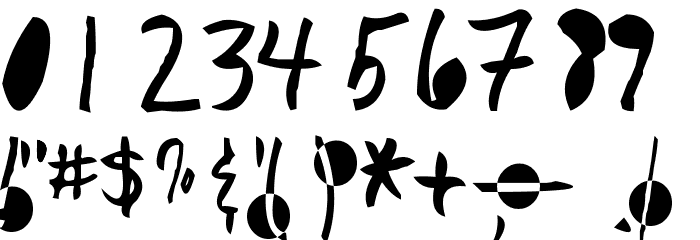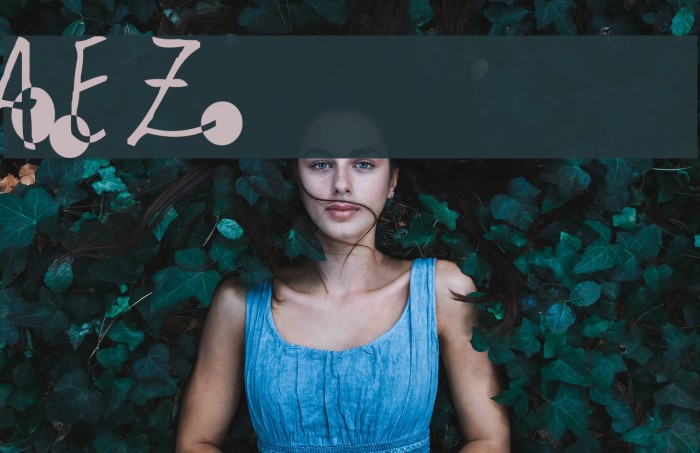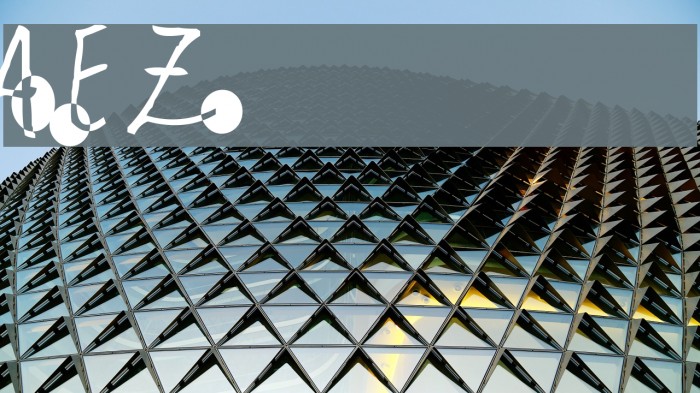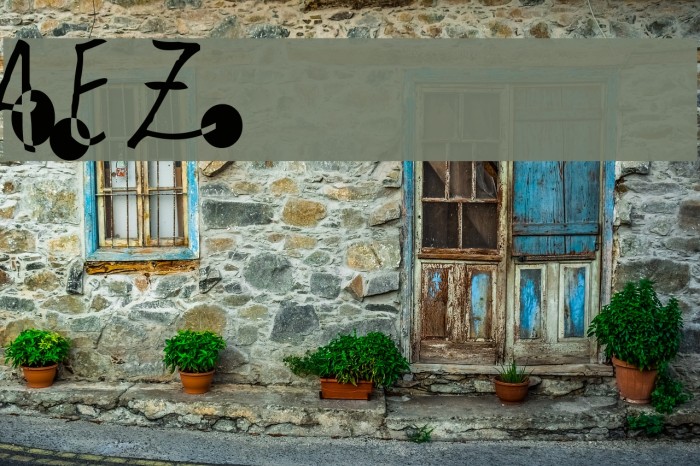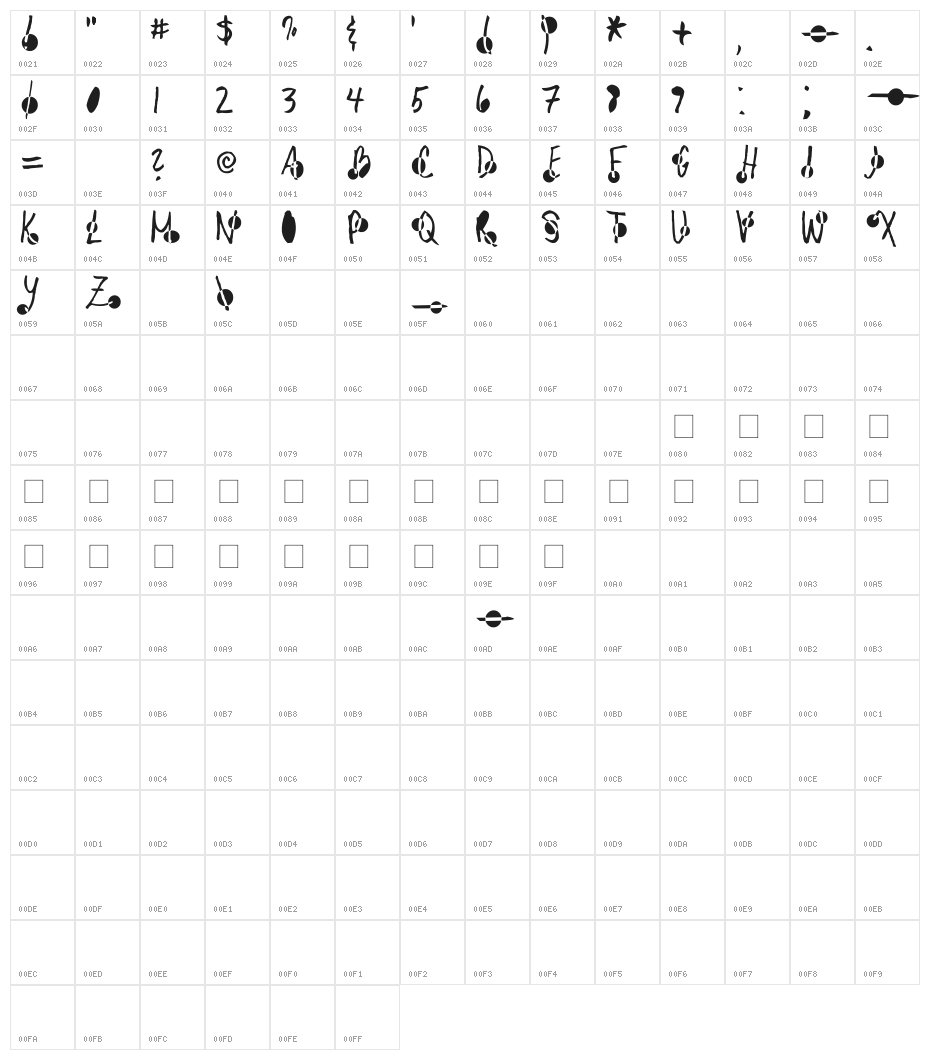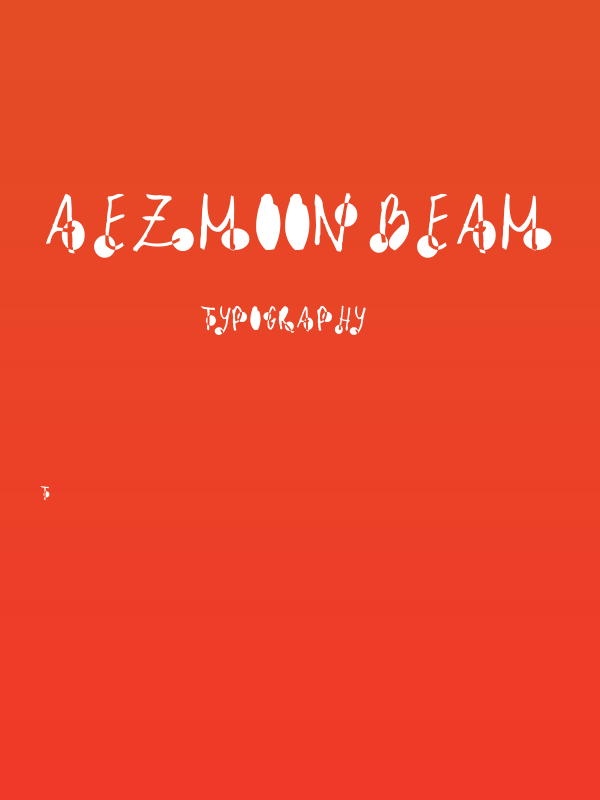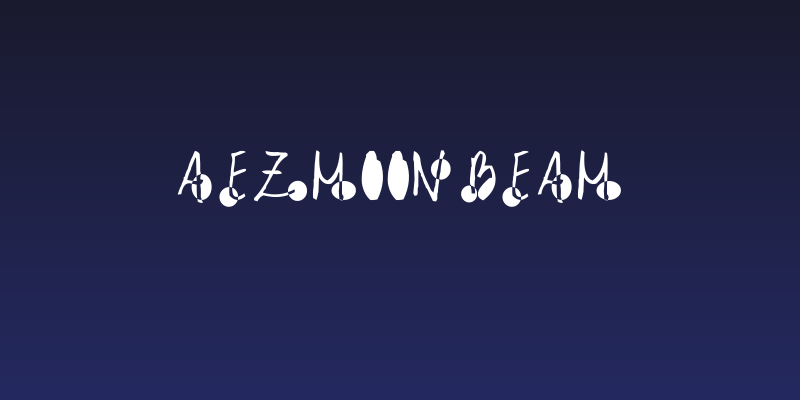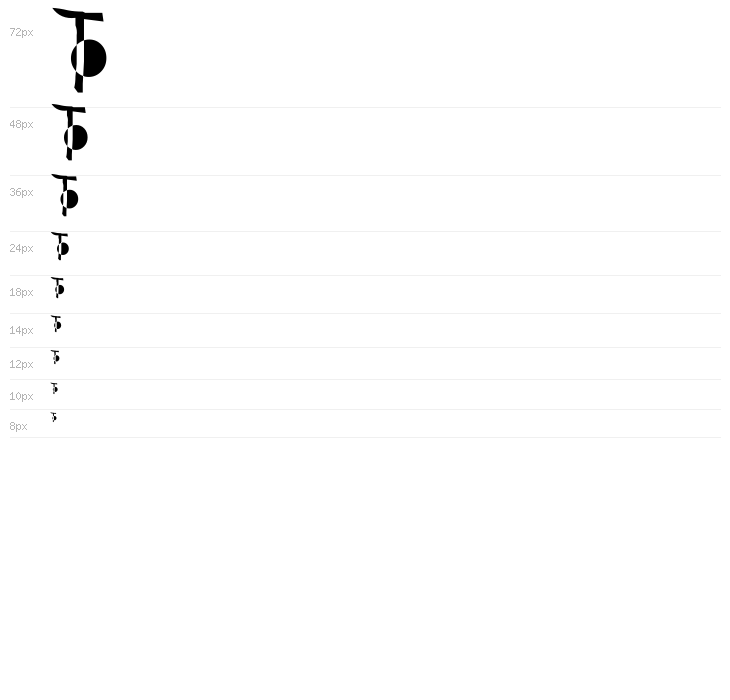
AEZmoonbeam Font
This font features a unique and artistic style, combining bold strokes with circular elements that create a playful and dynamic appearance. The uppercase letters are characterized by their bold, rounded shapes, while the lowercase letters maintain a consistent flow with slightly more angular forms. Numbers and special characters follow the same design principles, ensuring a cohesive look across all elements. The font's distinctive style makes it stand out, with a modern and creative flair that is both eye-catching and memorable.
A bold, artistic font with circular elements and dynamic strokes.
- Proposed Projects: Ideal for creative projects such as posters, album covers, and branding that require a bold and artistic touch.
- Use Case: Logos, Posters, Album covers